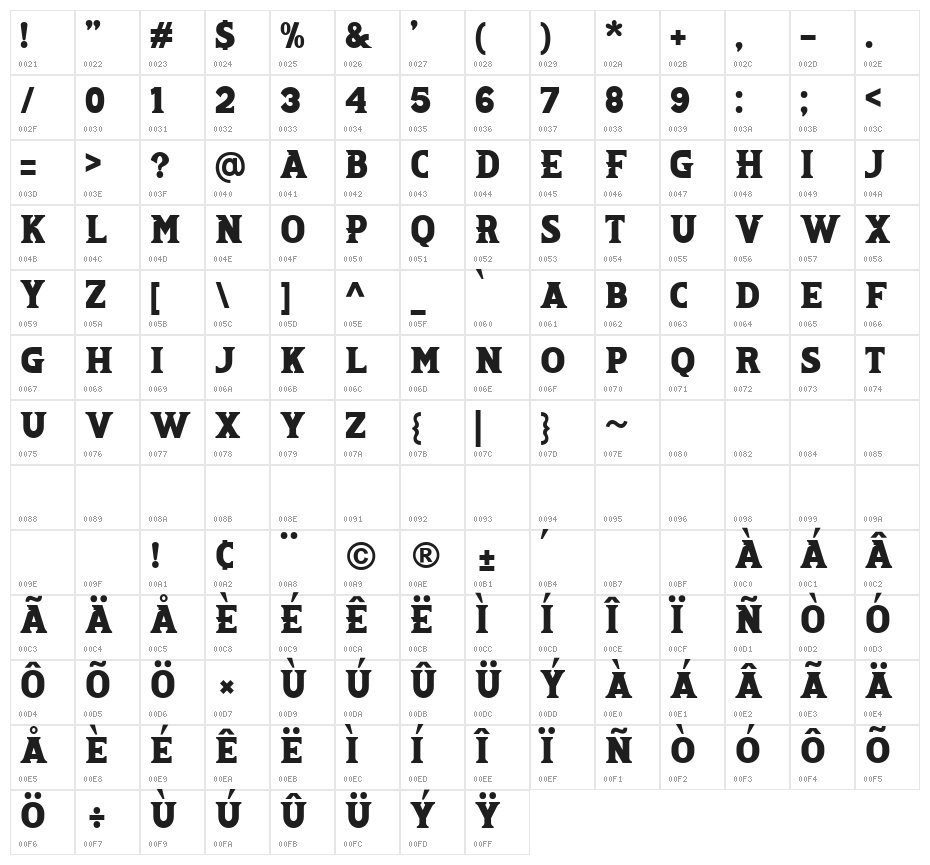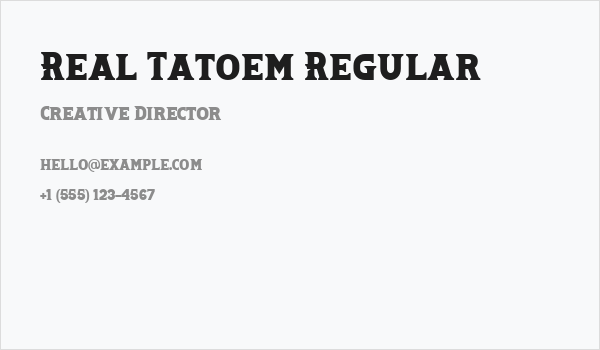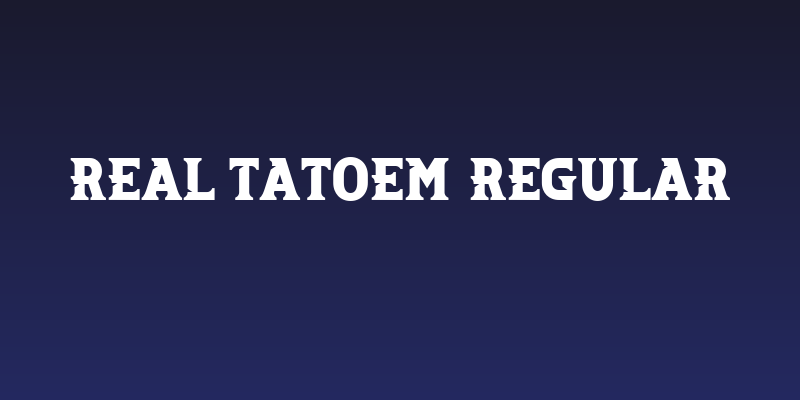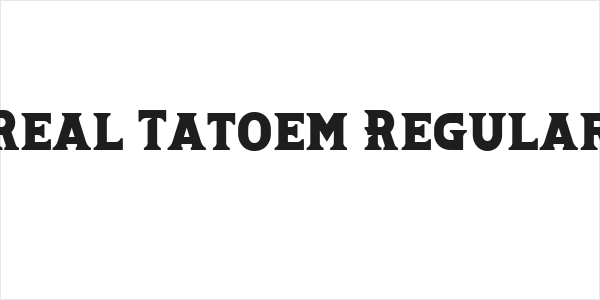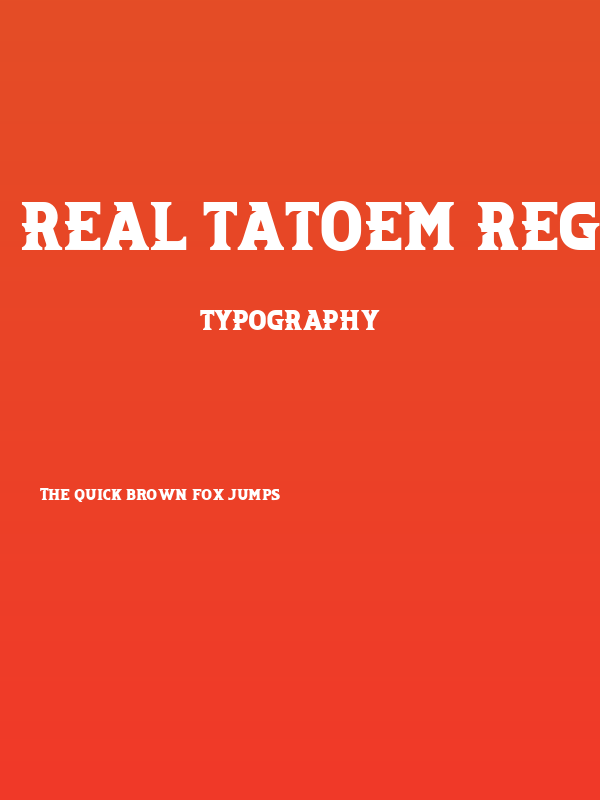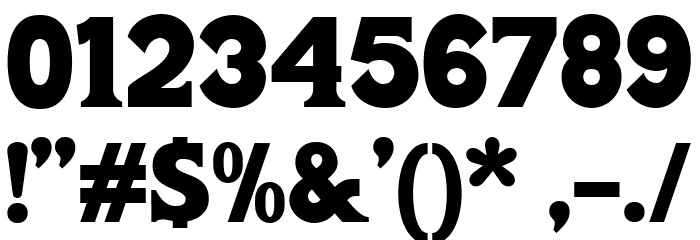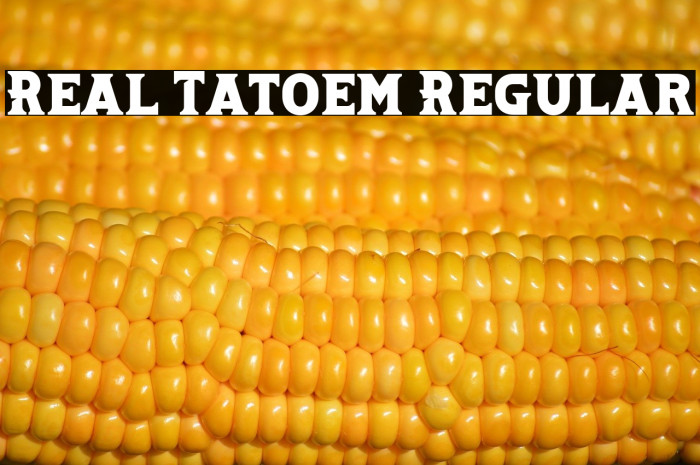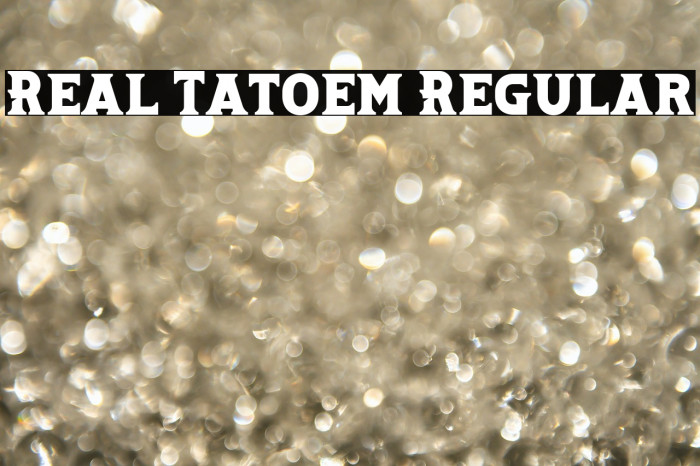
Real Tatoem Regular Font
Real Tatoem Regular Description
This font features a bold and impactful design with strong, thick strokes and pronounced serifs. The characters are well-defined and exhibit a classic, authoritative presence, making it suitable for attention-grabbing headlines and titles. The uppercase and lowercase letters maintain a consistent style, with the serifs adding a touch of elegance and tradition. The numerals are equally bold, ensuring they stand out in any context. Special characters are designed with the same boldness, ensuring uniformity across all glyphs. The overall appearance is robust and commanding, ideal for projects that require a strong visual impact.
| Proposed Projects | Ideal for headlines, posters, branding, and any project requiring a strong visual impact. |